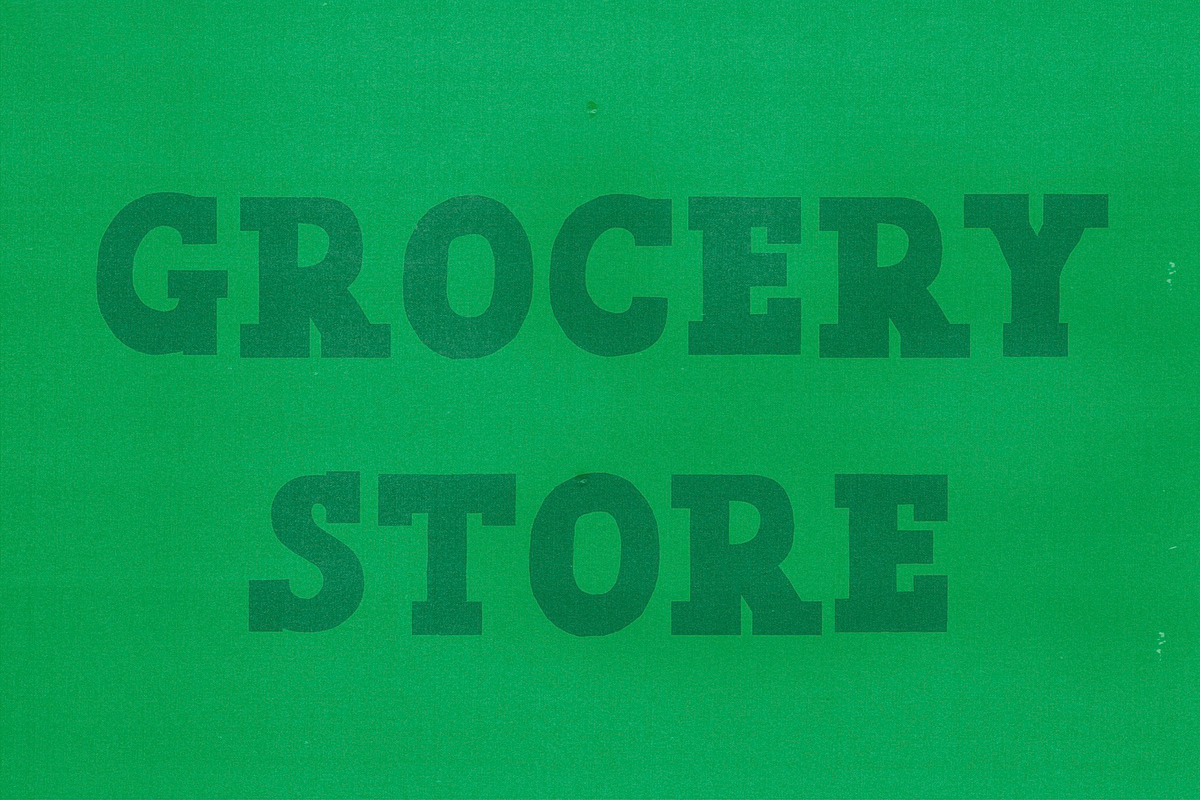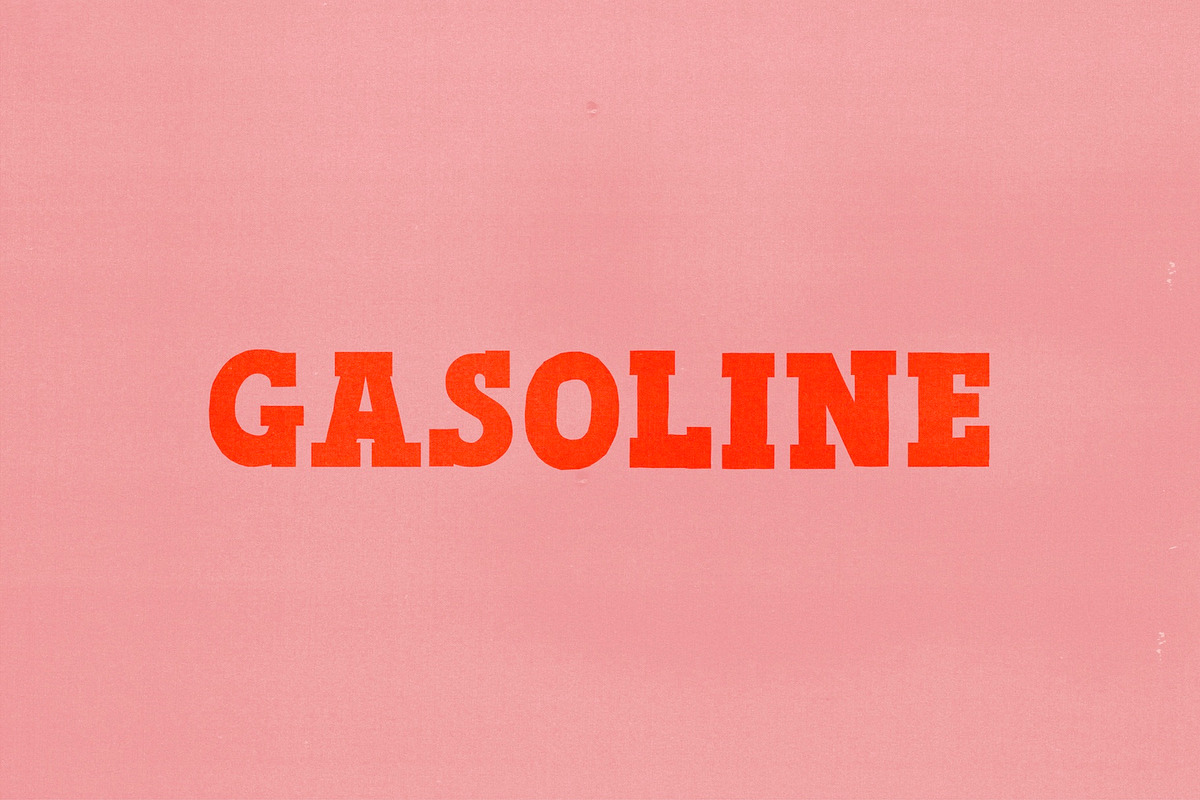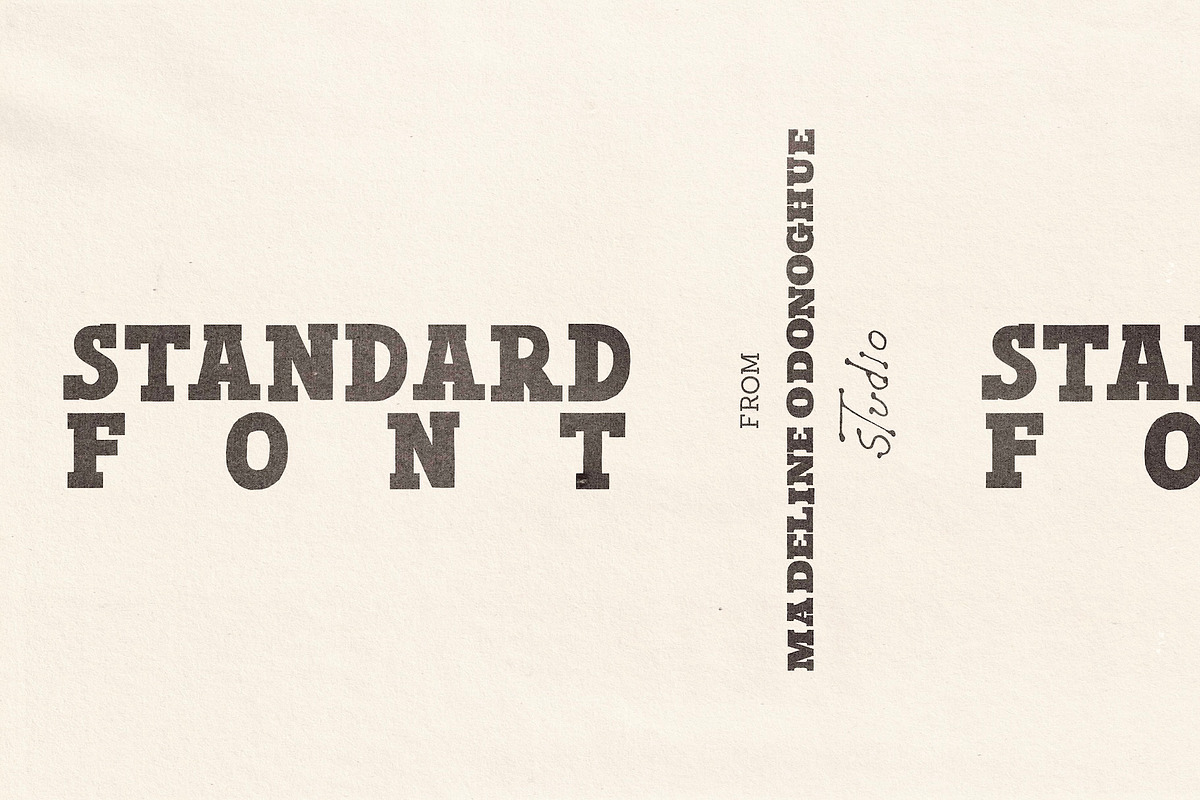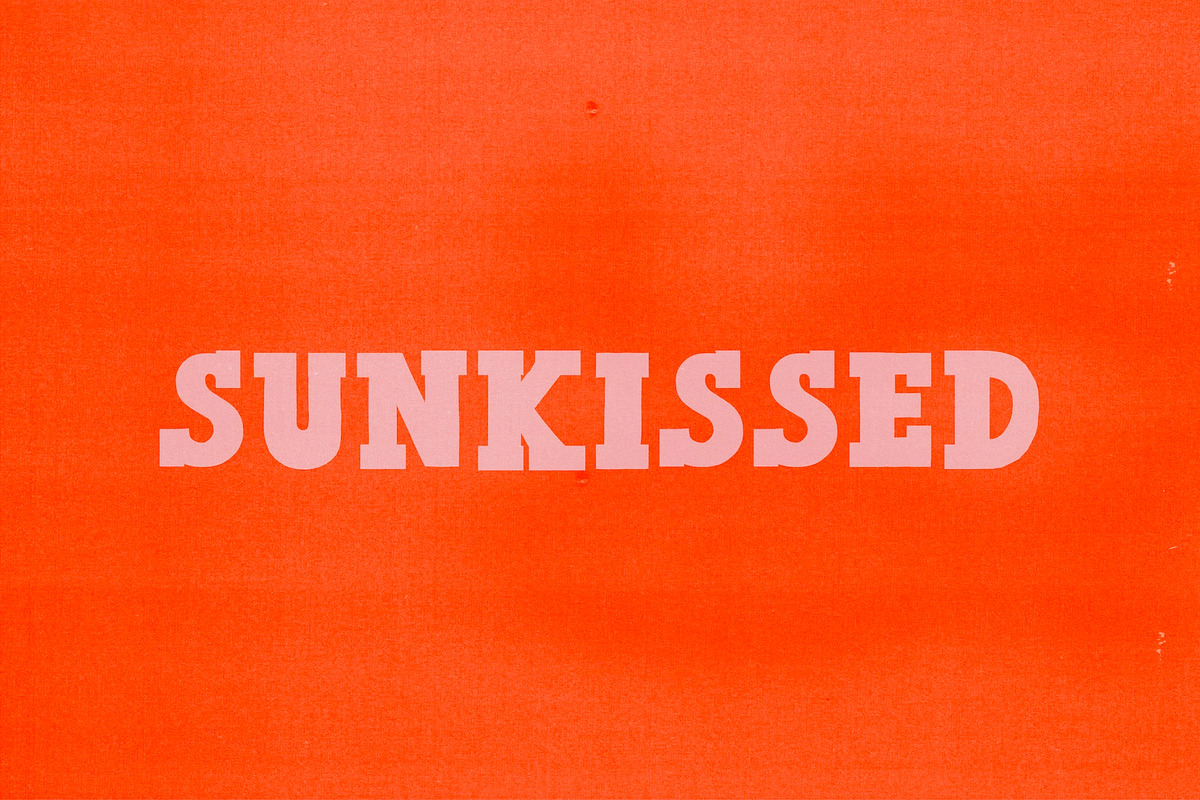
Standard | Hand Made Slab Serif Font
STANDARD is a hand-crafted, all-caps display typeface inspired by the bold vernacular lettering of 1960s Americana — from weathered gas station signage and roadside typography to vintage screen-printed posters and the expressive optimism of hand-made print. Influenced by the graphic spirit of artists such as Edward Ruscha and Sister Corita Kent, STANDARD celebrates the beauty of bold, imperfect lettering made by human hands.
Built from chunky forms and subtle irregularities, STANDARD embraces the character of old printed signage, worn ink and analogue printing processes. Every letter has been intentionally crafted with slight inconsistencies in weight, rhythm and shape, giving the typeface a raw, honest quality that feels far removed from digital perfection.
With its all-caps structure, STANDARD is designed for bold headlines, striking posters and expressive graphic work. It's a display font made to be used with confidence—experiment with spacing, scale and composition to create work that feels tactile, nostalgic and unmistakably handmade. This isn't a font designed for perfection; it's designed to bring warmth, personality and the spirit of analogue print into contemporary design.
Branding & logos
Posters & print-based graphics
Album artwork & band merchandise
Editorial layouts & creative direction
Packaging & independent brands
Apparel graphics
Vintage-inspired creative projects
Uppercase A–Z
Numbers 0–9
Very basic punctuation only